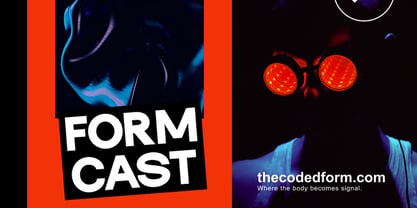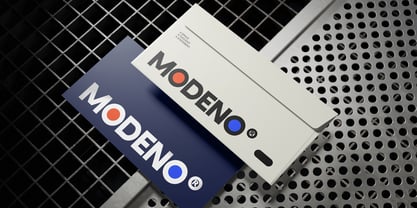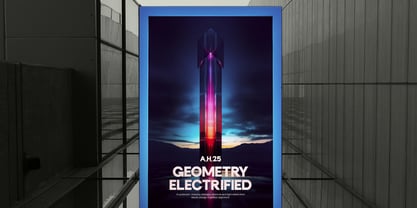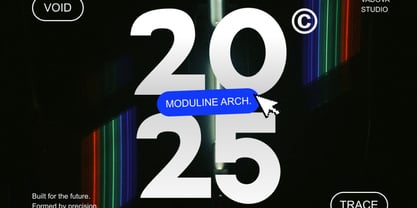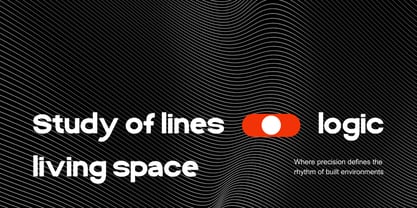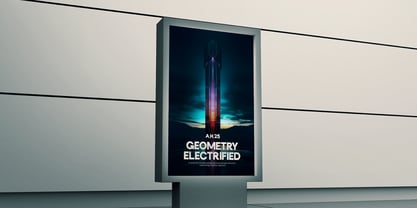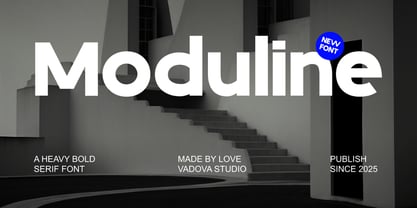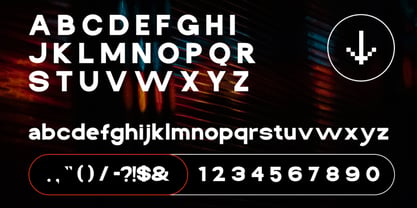
Moduline
by Vadova Std
The Moduline Font Family and published by Vadova Std. Moduline contains 1 styles. More about this family
Moduline Heavy Bold Serif Font is a bold modern sans serif font designed with geometric precision and clean curves. With its heavy weight and soft rounded edges, Moduline delivers a confident and futuristic look while retaining warmth and versatility. Ideal for branding, technology, editorial layouts, product packaging, and contemporary poster design, Moduline stands out with its sleek style that blends modernism and structure. Relevance and Use Cases Moduline is perfect for technology font, modern sans serif, bold display font, futuristic branding, digital poster, tech logo, cyberpunk visuals, architecture magazine, editorial layout, UI font, heavy title font, sci-fi typography, product packaging, startup branding, innovative brand identity, geometric type, creative agency, NFT visuals, software interface, modular font style, motion graphic title, event poster, game UI, visual identity, pixel inspired, UI UX font.